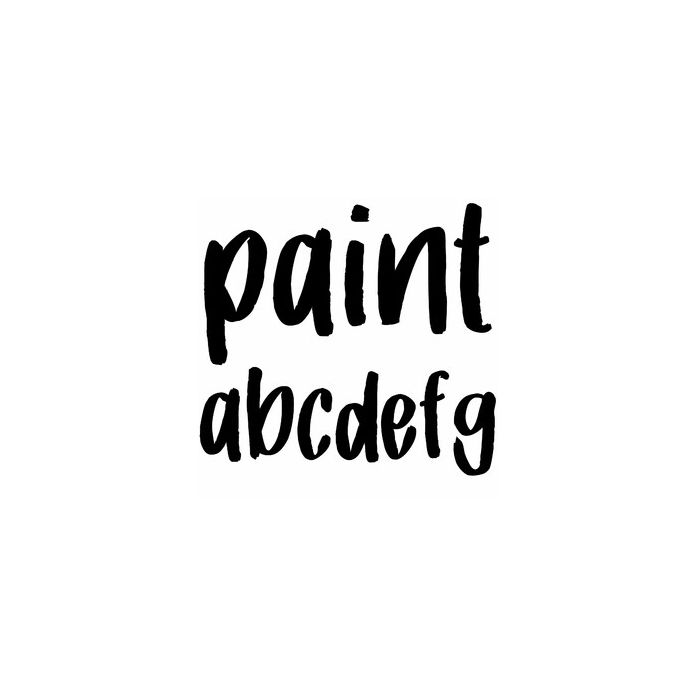
A fun rustic paint brush font for Halloween, Fall and Holiday signs, cards, decorations, labels, stickers, and personalization projects. Includes alphabet, numbers, and punctuation.